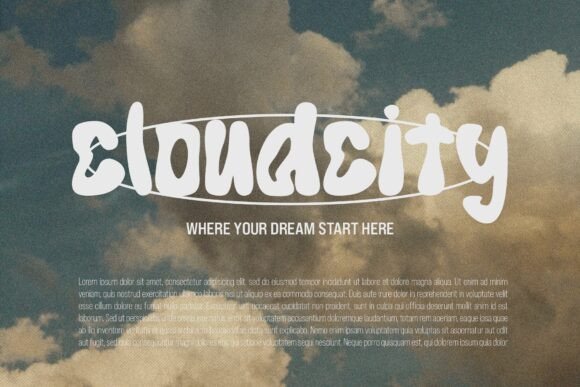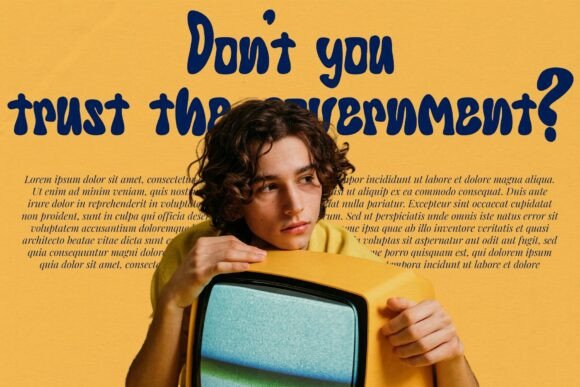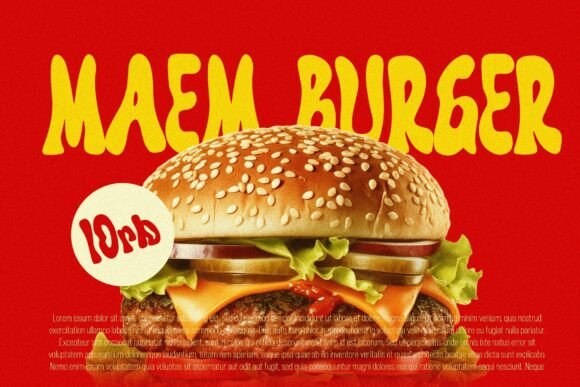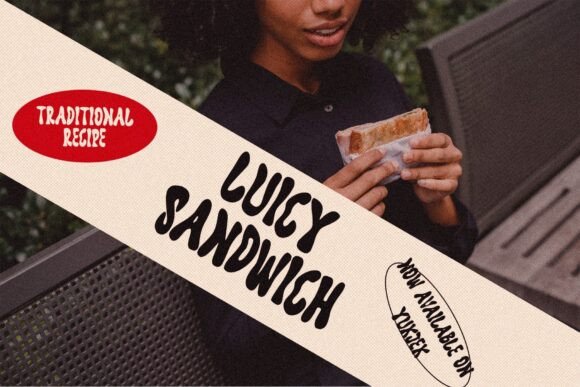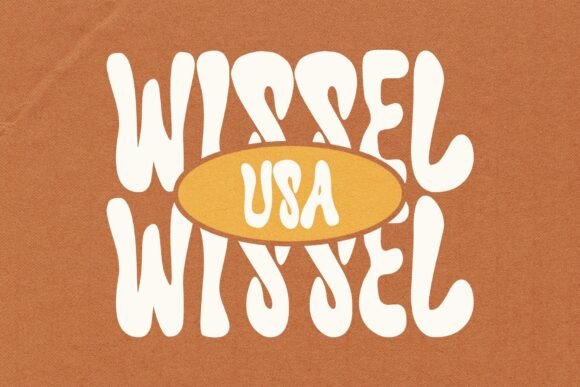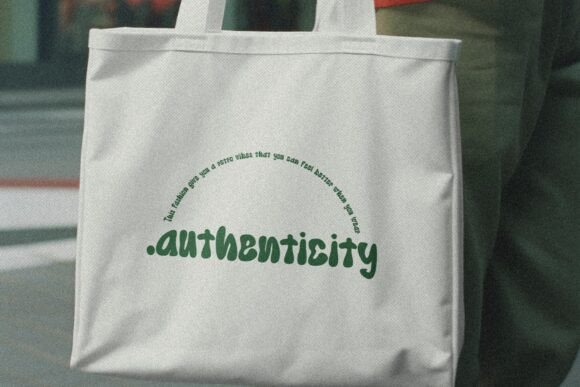
Introducing Blockier Font: A Bold and Playful Retro-Groovy Typeface
In the world of typography, fonts play a crucial role in conveying the tone and personality of a brand or design. For designers and crafters looking to add a touch of nostalgia and vibrant energy to their projects, Blockier Font is an excellent choice. Crafted by Koplexs Studio, Blockier is a bold and playful retro-groovy font that captures the essence of the 1960s and 1970s with a modern twist.
A Modern Take on Retro Typography
Blockier Font is a chunky typeface that is perfect for projects that need to stand out from the crowd. Its thick, rounded letters convey a sense of fun and liveliness, making it ideal for headlines, logos, posters, and various creative applications. The font’s bold and playful design is reminiscent of the iconic typography of the 1960s and 1970s, but with a modern twist that makes it fresh and relevant.
Key Features of Blockier Font
- Bold and Playful Design: Blockier Font features thick, rounded letters that convey a sense of fun and liveliness.
- Retro-Groovy Aesthetic: The font captures the essence of the 1960s and 1970s with a modern twist, making it perfect for projects that need a touch of nostalgia.
- Chunky Typeface: Blockier Font is a chunky typeface that is perfect for headlines, logos, posters, and various creative applications.
- Versatile: The font is suitable for a wide range of projects, from digital designs to print materials.
Uses of Blockier Font
Blockier Font is a versatile typeface that can be used in a variety of creative applications. Here are some ideas to get you started:
- Headlines and Titles: Use Blockier Font to create bold and eye-catching headlines and titles that grab attention.
- Logos and Branding: The font’s unique design makes it perfect for logos and branding projects that need to stand out.
- Posters and Flyers: Blockier Font is ideal for posters and flyers that need to convey a sense of fun and energy.
- Digital Designs: The font is suitable for digital designs, including social media graphics, website headers, and more.
Why Choose Blockier Font?
- Unique Design: Blockier Font features a unique and distinctive design that sets it apart from other fonts.
- Easy to Read: Despite its bold and chunky design, Blockier Font is easy to read, making it perfect for a wide range of applications.
- High-Quality: The font is crafted with high-quality and attention to detail, ensuring that it looks great in any project.
In conclusion, Blockier Font is a bold and playful retro-groovy typeface that is perfect for designers and crafters looking to add a touch of nostalgia and vibrant energy to their projects. With its unique design, versatility, and high-quality craftsmanship, Blockier Font is an excellent choice for a wide range of creative applications. Whether you’re working on a headline, logo, poster, or digital design, Blockier Font is sure to make your project stand out from the crowd.